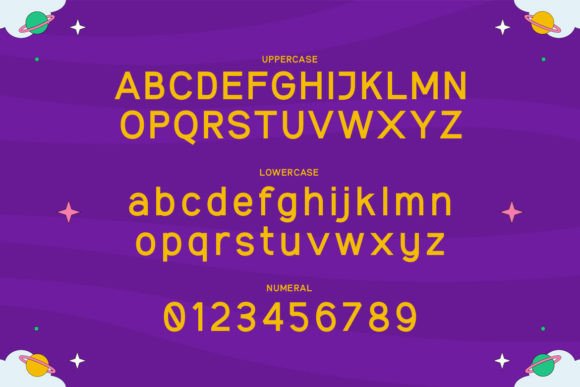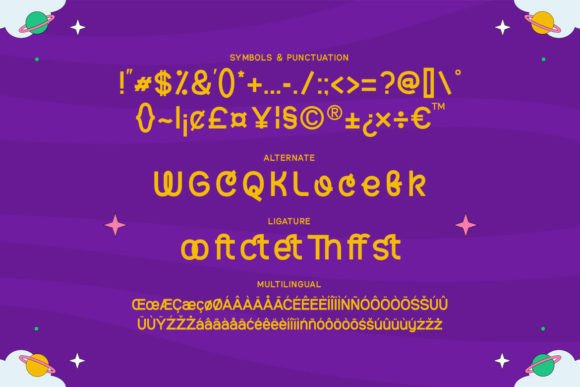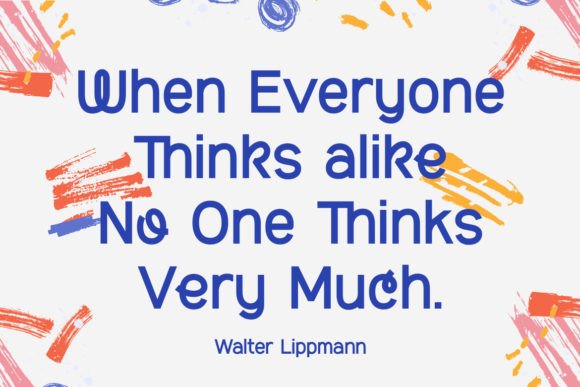
Introduction to Quackers Font
You’re in the middle of a design project, and you’re struggling to find the perfect font to bring your creative vision to life. The words “clean” and “professional” are echoing in your mind, but nothing seems to fit quite right. That’s when you stumble upon a hidden gem – the Quackers Font.
This sans font is more than just a design resource; it’s a game-changer. With its unique and modern aesthetic, the Quackers Font is the ideal choice for any cool project or great design you wish to develop. Whether you’re working on a personal or commercial project, this font is sure to elevate your design to the next level.
Key Features of Quackers Font
- High-quality design: This font features a high-quality design with a transparent background, making it perfect for use on various backgrounds.
- High-resolution design: The font is designed at a high resolution (300 DPI) to ensure crisp and clear text, ideal for print and digital projects.
- Unique characteristics: Quackers Font features a distinctive and playful design, making it perfect for creative projects that require a fun and quirky touch.
Honest Review: Quackers Font
One of the standout features of the Quackers Font is its playful, whimsical feel. It’s perfect for adding a touch of personality to your design projects, especially those that require a bit of humor or quirkiness. The font comes with a transparent background, allowing for seamless integration into any design.
Here are some things that work well:
- Playful, whimsical feel that adds personality to designs
- Font may not be suitable for professional or formal designs
- Limited customization options
Overall, I’m thoroughly impressed with the Quackers Font. It’s a great design resource for creatives who want to add a bit of fun and personality to their projects. With its high-quality design and free download, it’s definitely worth checking out.
Quackers Font
Tips for Getting the Most Out of Quackers Font
Use the Quackers Font on a transparent background to create a high-quality design resource. You can also use it in combination with other fonts to add visual interest to your creative project.
The Quackers Font is perfect for designing fun and playful graphics, such as social media posts, flyers, and brochures. You can also use it in educational materials, such as worksheets and presentations.
Alternatives to Quackers Font
Bubblegum Sans
Bubblegum Sans is a playful, cursive font perfect for creative projects that require a fun and whimsical feel. It’s ideal for designing children’s books, cartoons, or any project that needs a touch of innocence and charm.
Compared to Quackers Font, Bubblegum Sans has a more subtle, elegant look that still conveys a sense of playfulness. While Quackers Font is more cartoonish, Bubblegum Sans is more refined, making it a great choice for designers who want a high-quality font without the cartoonish feel.
Luckiest Guy
Luckiest Guy is a sans-serif font with a modern, sleek design. It’s great for designing corporate materials, such as business cards, brochures, or websites, where a clean and professional look is essential.
Compared to Quackers Font, Luckiest Guy has a more serious, professional tone. While Quackers Font is perfect for creative projects that require a fun and playful feel, Luckiest Guy is ideal for projects that need a more mature and sophisticated look.
Is the Quackers Font suitable for designs with a transparent background?
Yes, the Quackers Font is designed to be used with a transparent background, making it ideal for designs that require a high level of customization and flexibility. The font’s transparent background allows designers to easily overlay it on top of other elements, creating a seamless and professional-looking design.